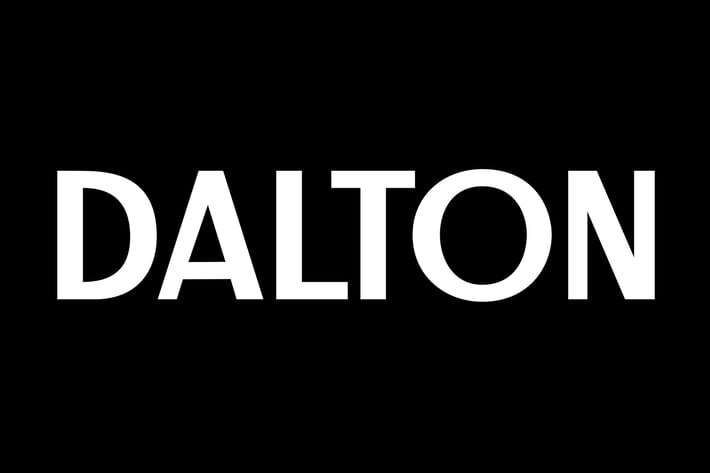
Dalton - Business Font
Dalton is professional Business font. It is perfect for business purpose like business card design, magazine, advertisement, fashion, web, book cover, poster.